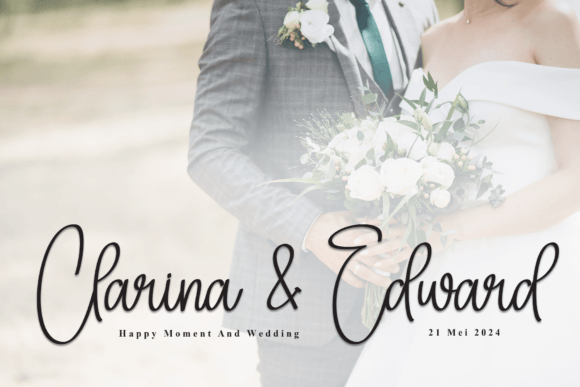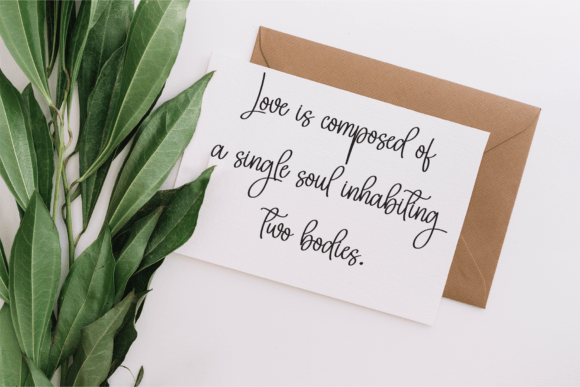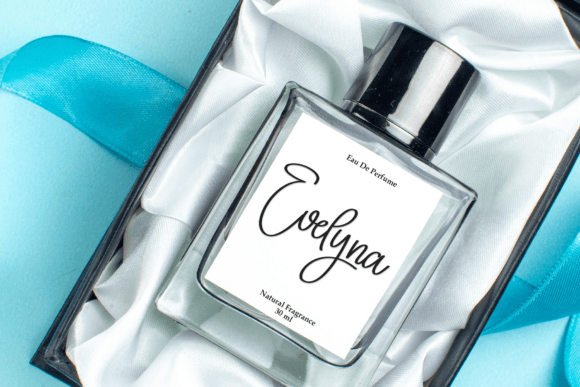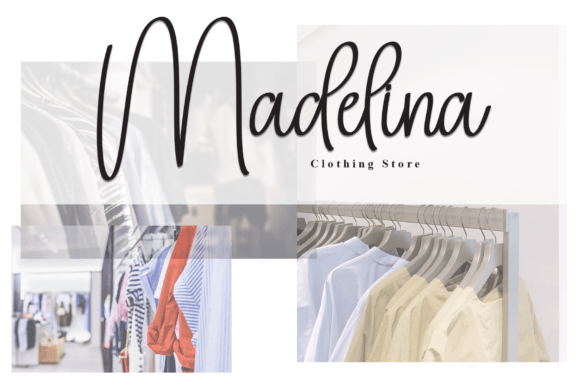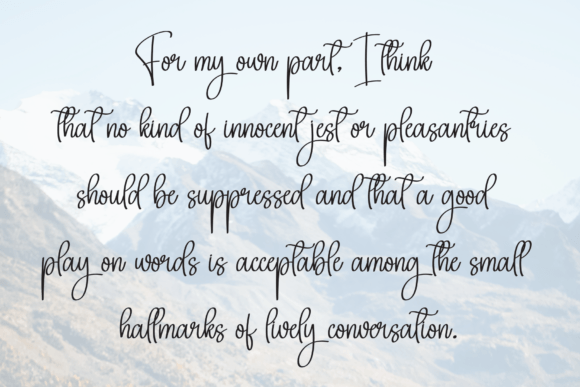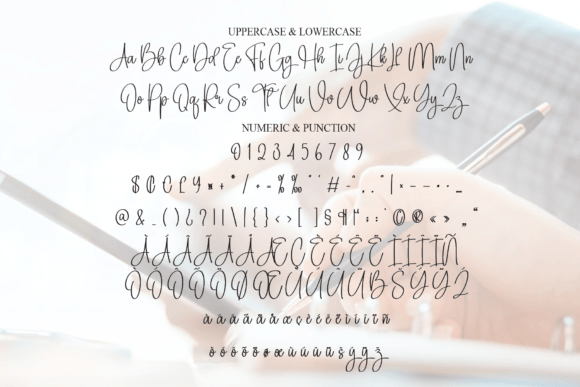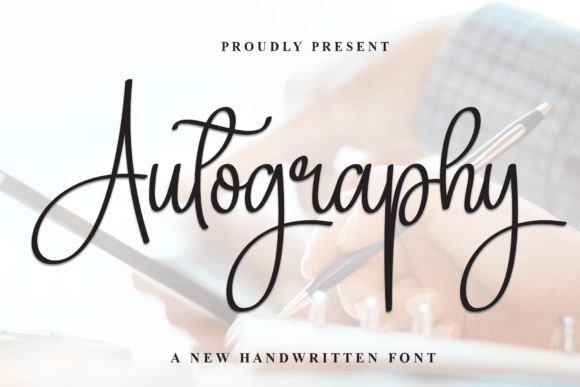
Introducing Autography Font: The Sweetly Charming Handwritten Font You Need
Are you tired of using the same old fonts in your design projects? Do you want to add a touch of whimsy and fun to your wedding invitations, greeting cards, or other designs? Look no further than Autography Font, a sweetly charming handwritten font that’s sure to bring a smile to your audience’s faces.
A Delightful Spirit
Autography Font is warmly crafted with a delightful spirit that’s perfect for designers and crafters who want to add a personal touch to their work. This versatile font is kid-friendly, making it ideal for projects that require a playful and cheerful vibe. Whether you’re designing a wedding invitation, a greeting card, or a children’s book, Autography Font is sure to bring a sense of joy and wonder to your design.
A Hand-Drawn Marvel
What sets Autography Font apart from other fonts is its hand-drawn charm. Each letter is carefully crafted to create a unique and captivating fun factor that’s hard to find in digital fonts. The font’s hand-drawn nature gives it a personal and human touch that’s perfect for designers who want to create a sense of connection with their audience.
Autography Font is a versatile font that can be used in a variety of design projects. Here are some ideas to get you started:
- Wedding invitations: Add a touch of whimsy and romance to your wedding invitations with Autography Font.
- Greeting cards: Create cheerful and playful greeting cards for birthdays, holidays, and other special occasions.
- Children’s books: Bring your children’s book to life with Autography Font’s kid-friendly charm.
- Social media graphics: Add a personal touch to your social media graphics with Autography Font.
- Branding: Use Autography Font to create a unique and memorable brand identity.
Why Choose Autography Font?
So, why choose Autography Font for your design projects? Here are just a few reasons:
- Unique and eye-catching: Autography Font is a one-of-a-kind font that’s sure to grab attention.
- Versatile: This font can be used in a variety of design projects, from wedding invitations to children’s books.
- Kid-friendly: Autography Font is perfect for projects that require a playful and cheerful vibe.
- Hand-drawn: The font’s hand-drawn nature gives it a personal and human touch.
Tips for Using Autography Font
Here are a few tips for using Autography Font in your design projects:
- Use it sparingly: Autography Font is a bold and eye-catching font, so use it sparingly to avoid overwhelming your design.
- Pair it with other fonts: Experiment with pairing Autography Font with other fonts to create a unique and interesting contrast.
- Experiment with colors: Autography Font looks great in a variety of colors, so don’t be afraid to experiment and find the perfect hue for your design.